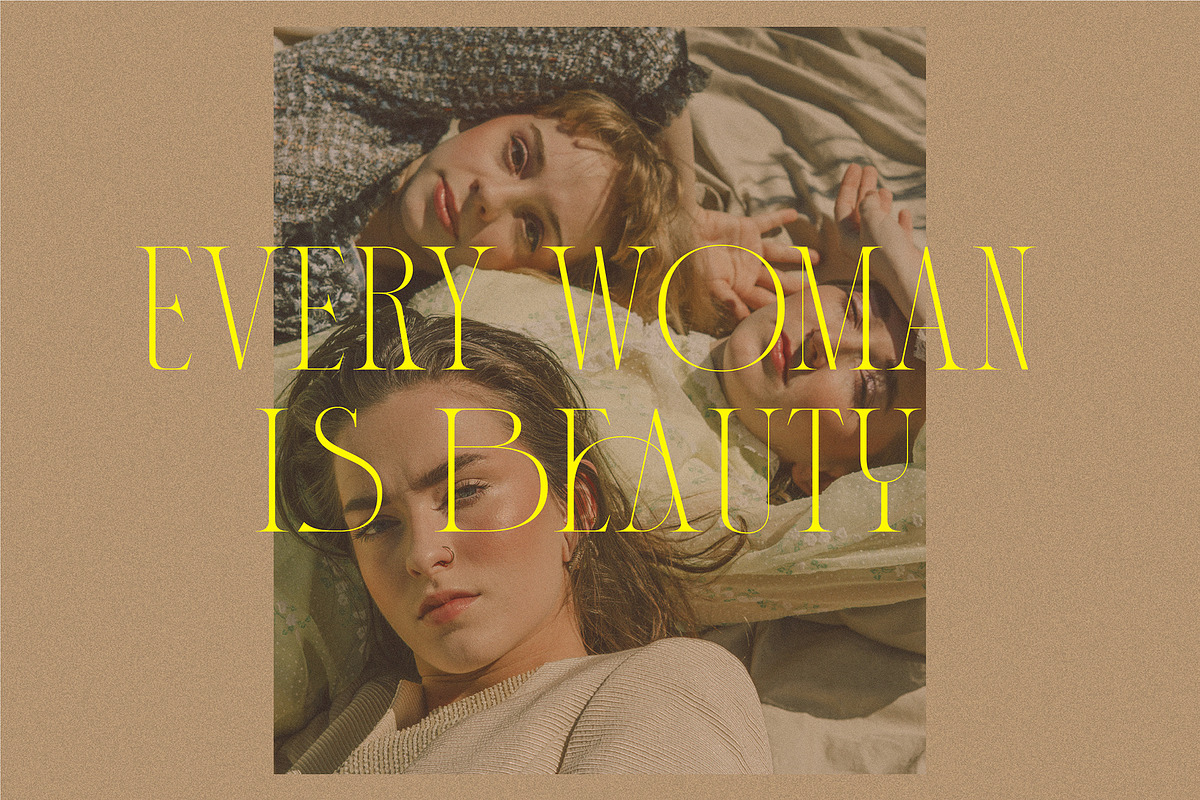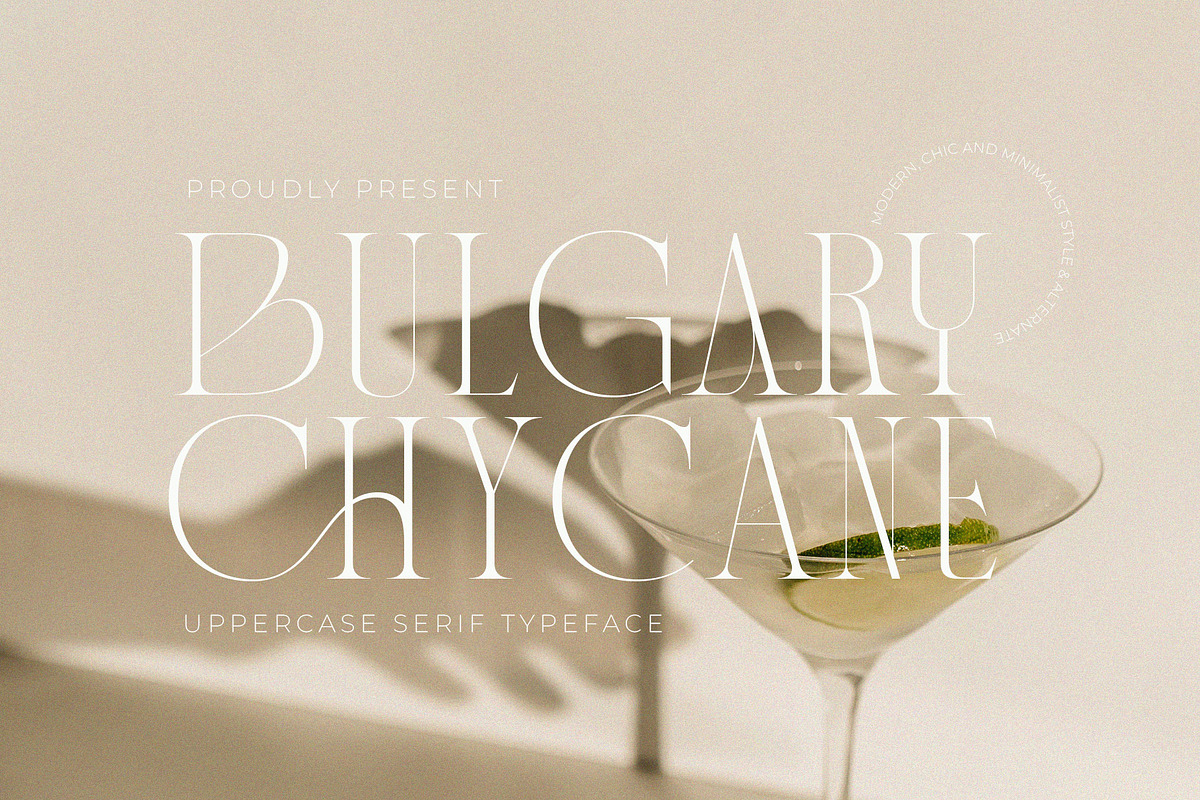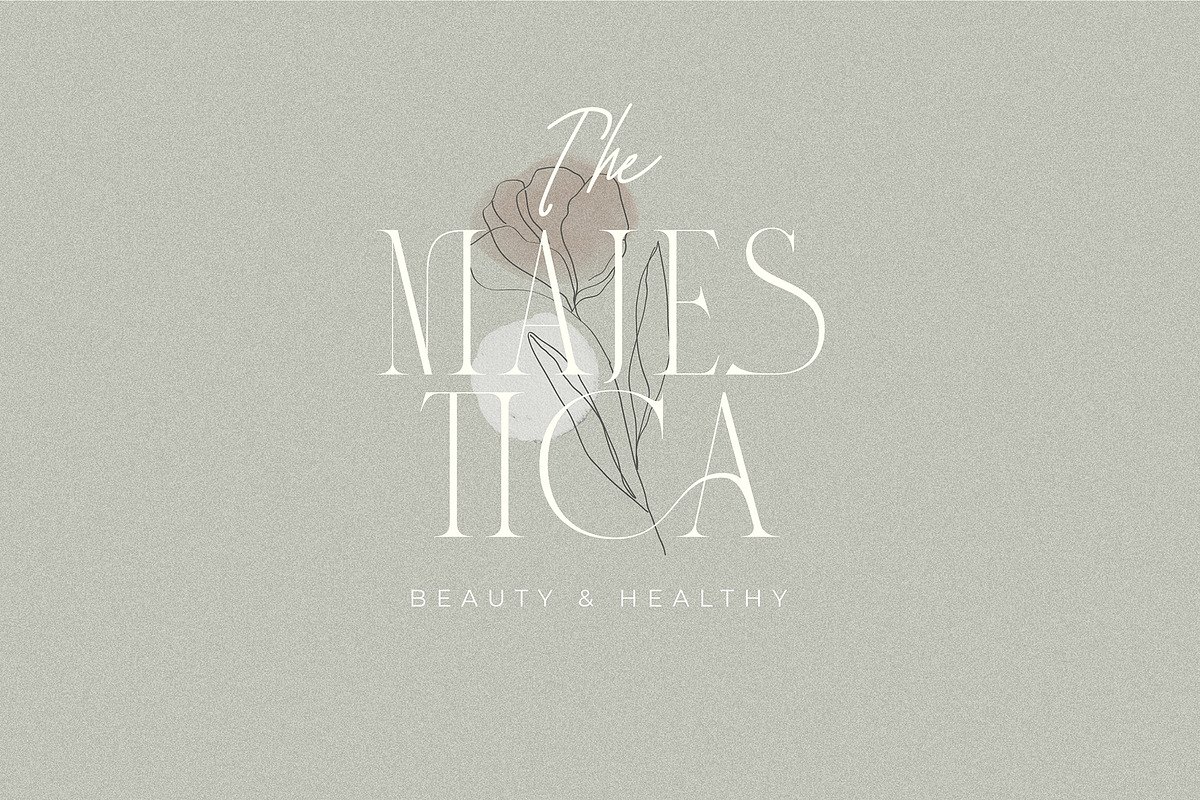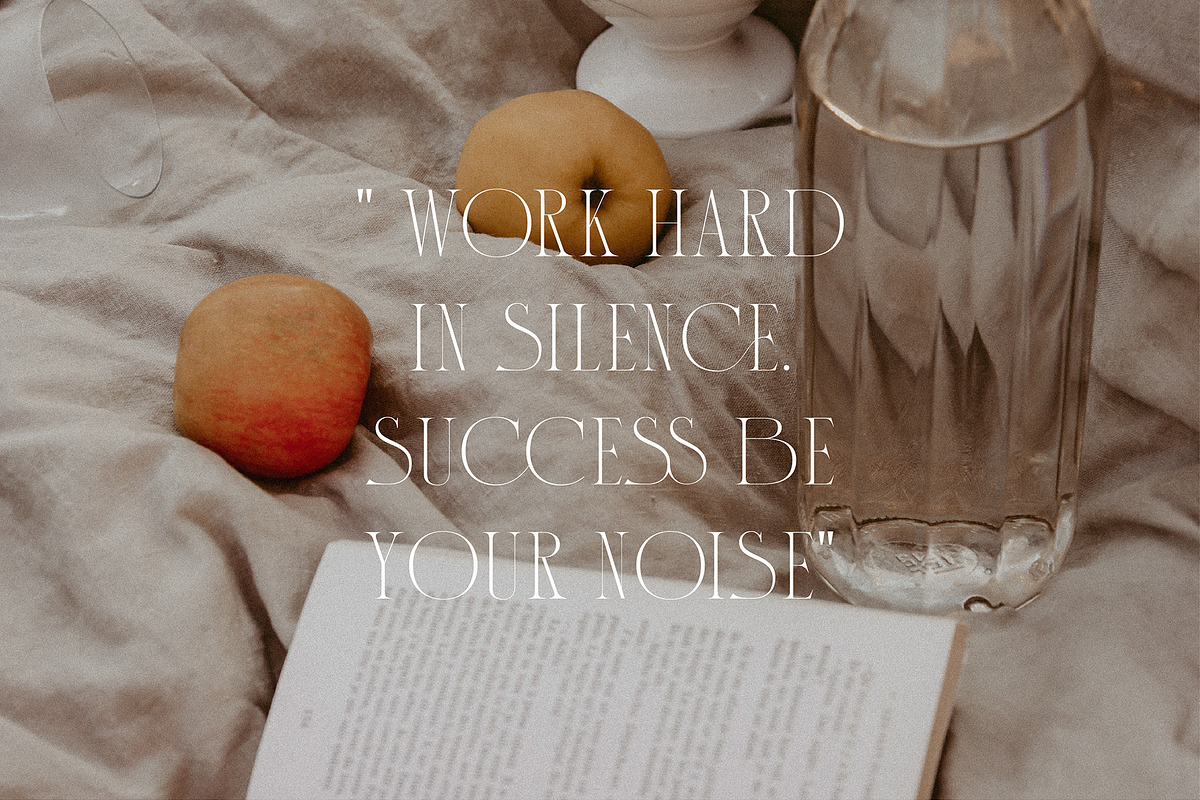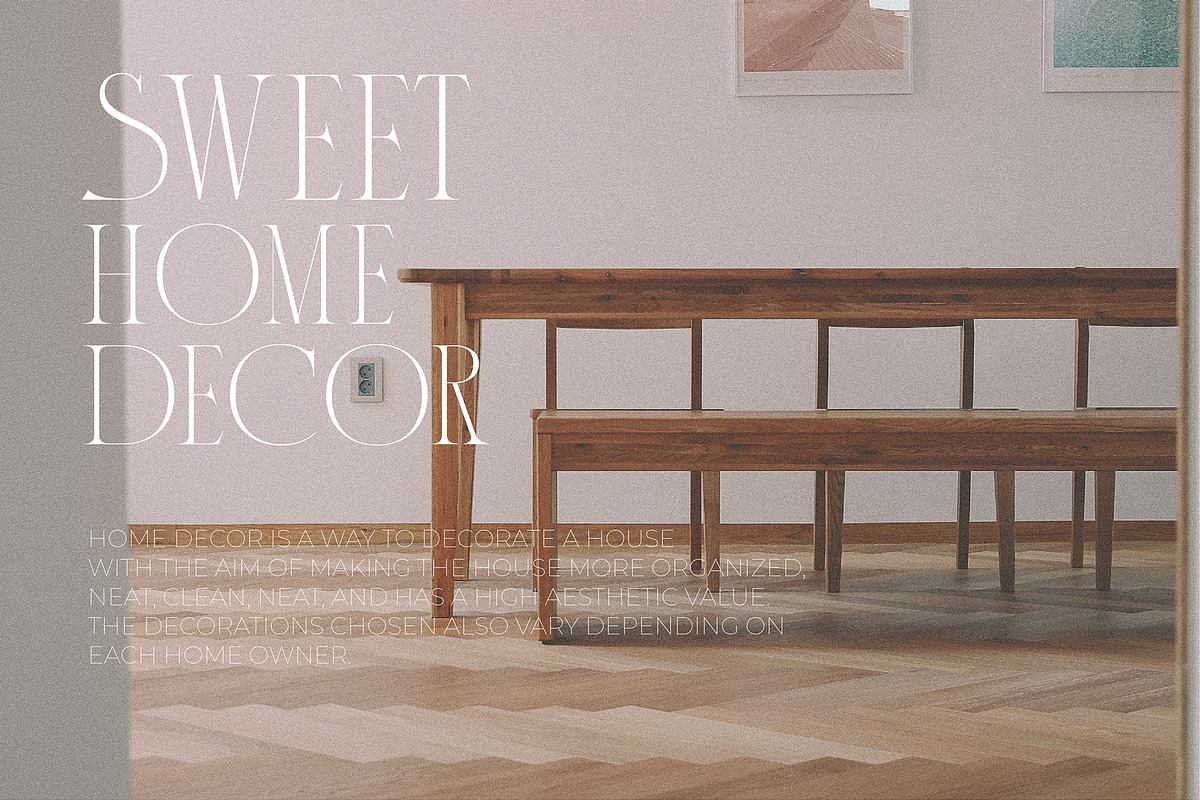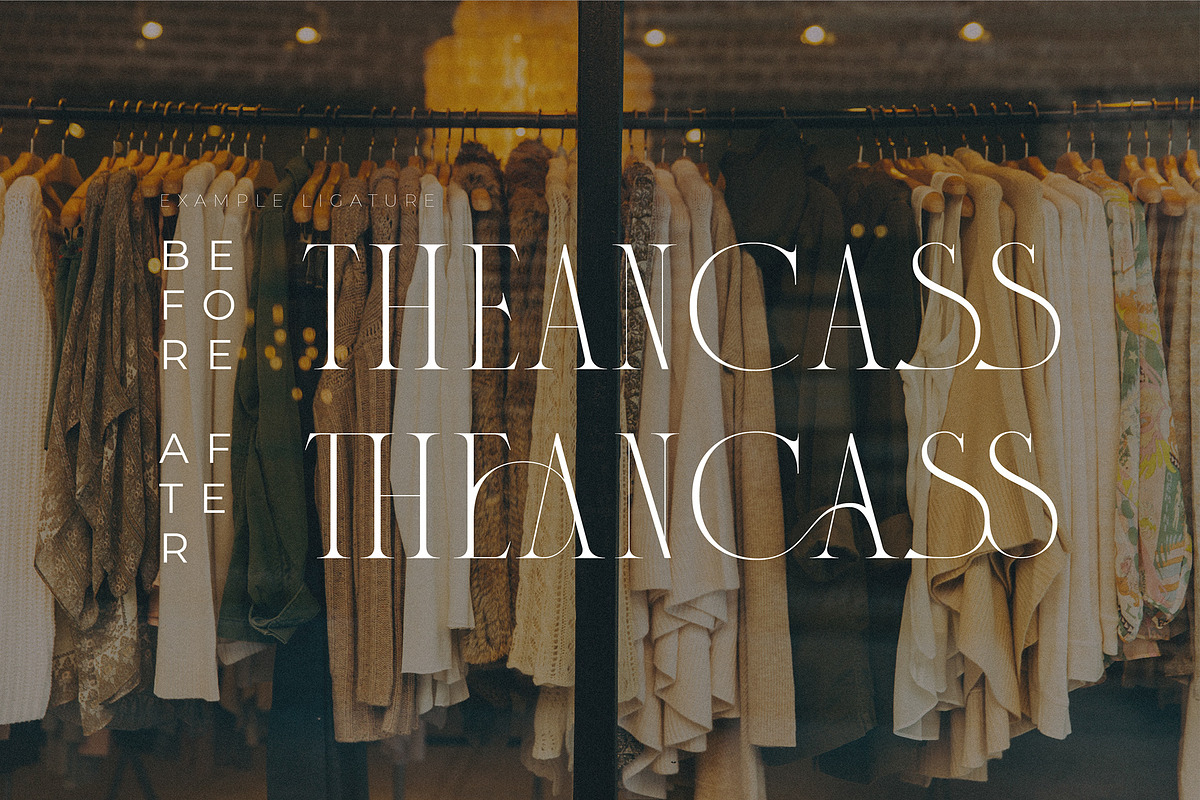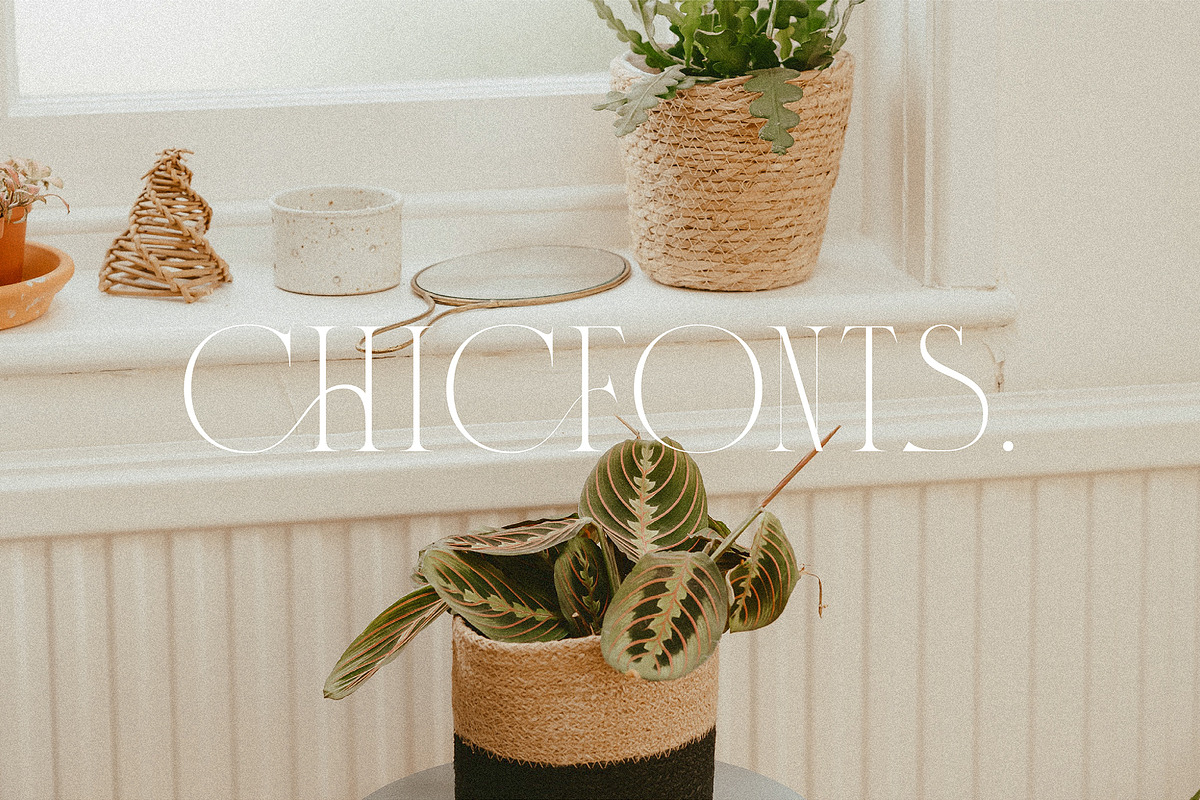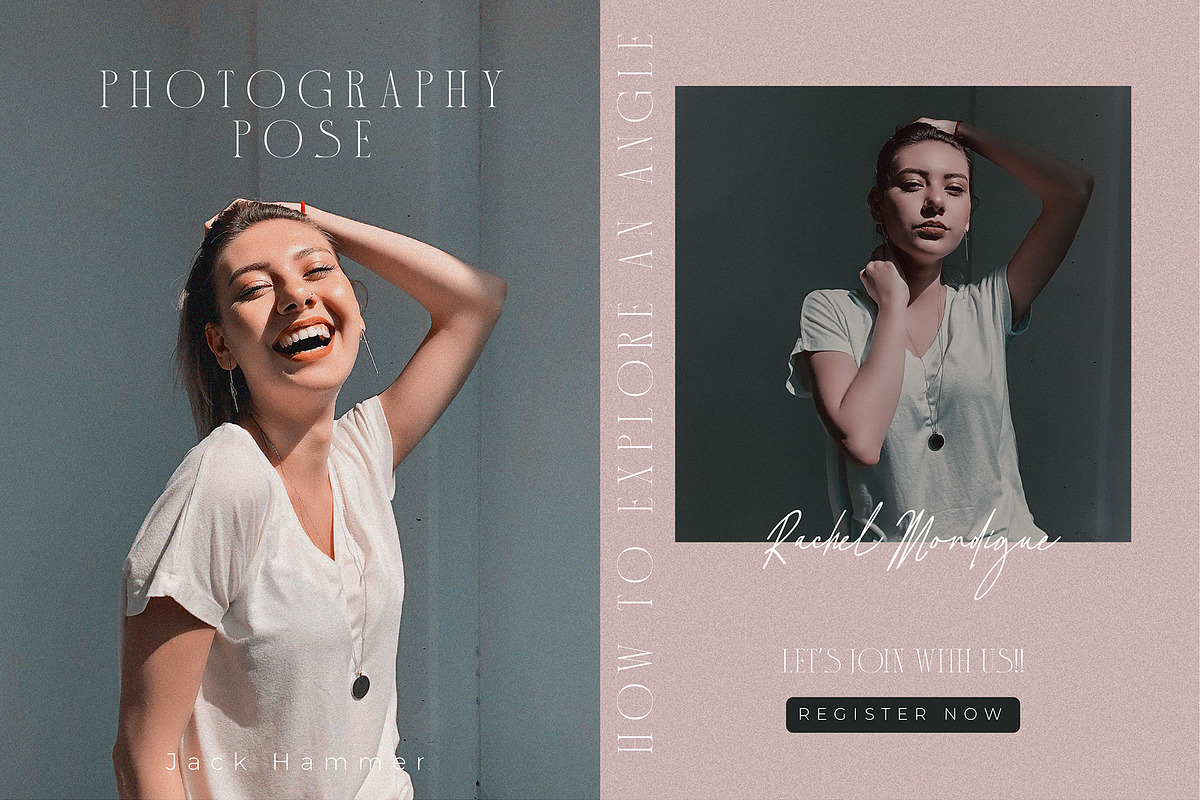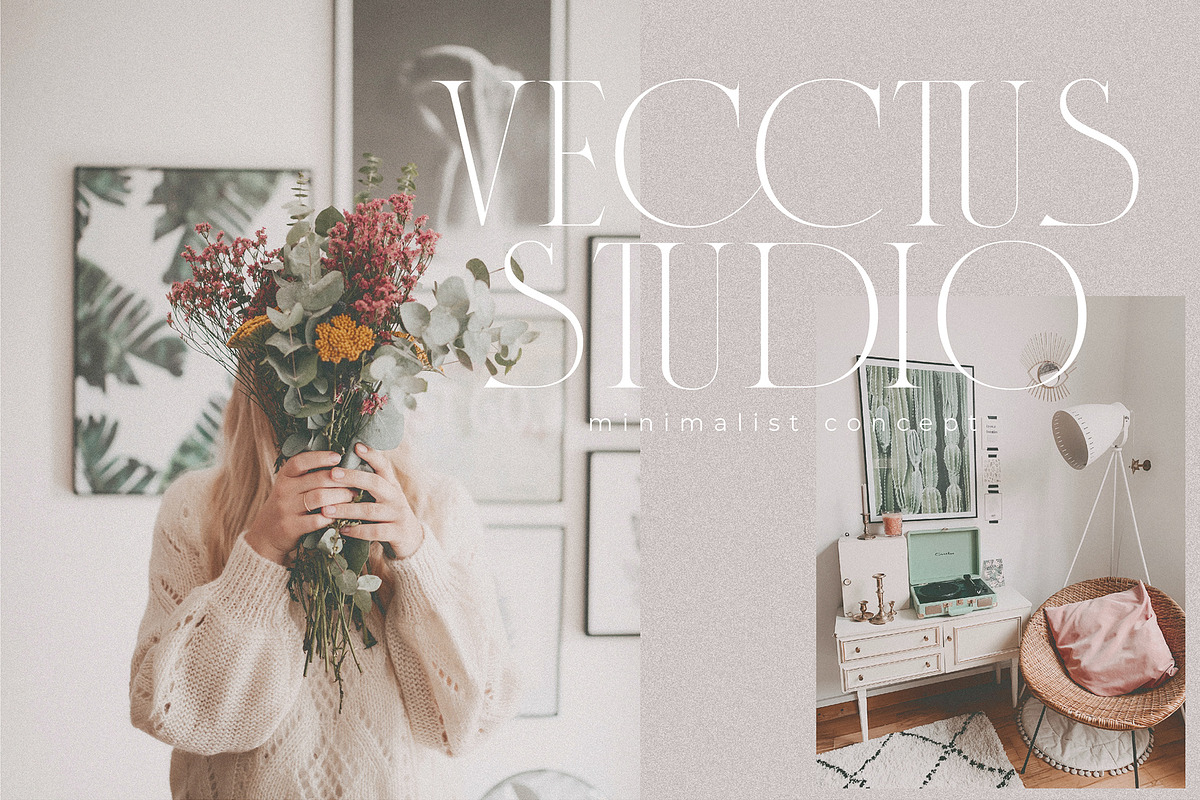
Bulgary Chycane
is proud to introduce a new font with the name Bulgary Chycane using capital letters and a simple modern elegant style as well as clean and luxurious. This font is very customizable and makes your project even more luxurious and can also be applied to various media. If you download it, you will get: